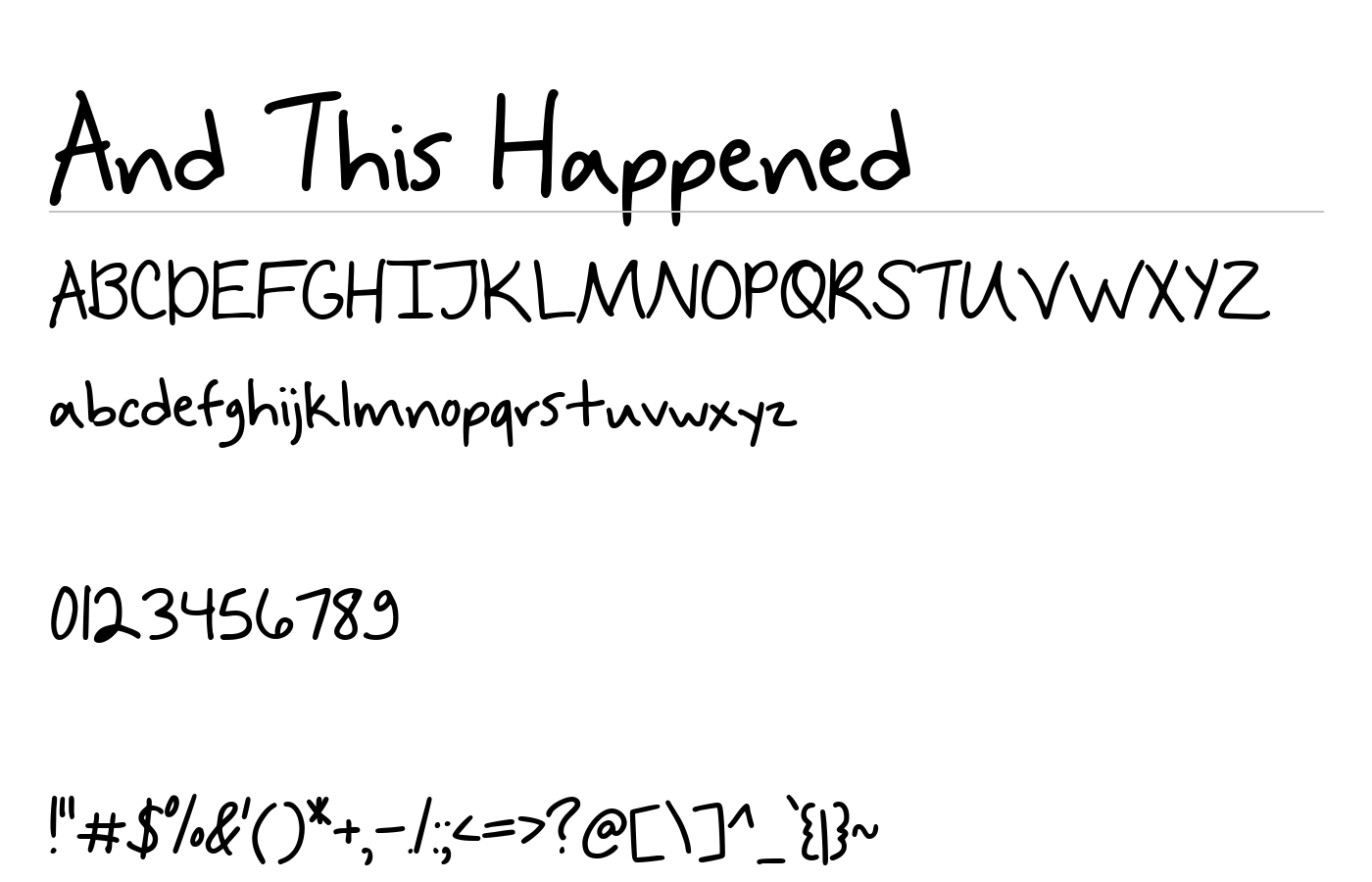
And This Happened is a casual, handwritten sans serif font that feels warm and approachable. Its irregular, playful letterforms with a natural stroke width and tall x-height make it ideal for friendly, informal designs like greeting cards, personal blogs, or children’s products. This font works well in headlines and short texts where a personal, relaxed vibe is desired.
And This Happened Font
About And This Happened Font